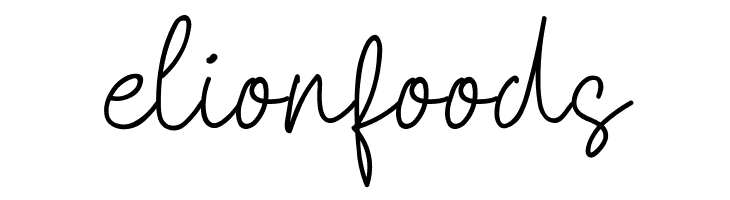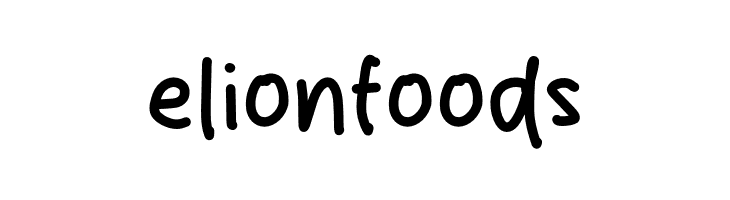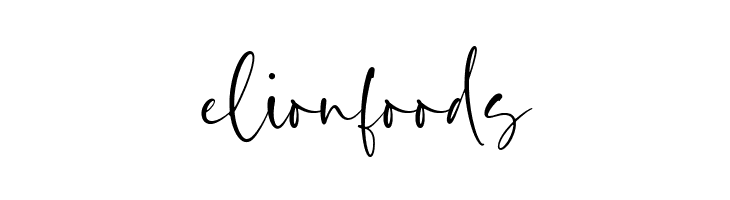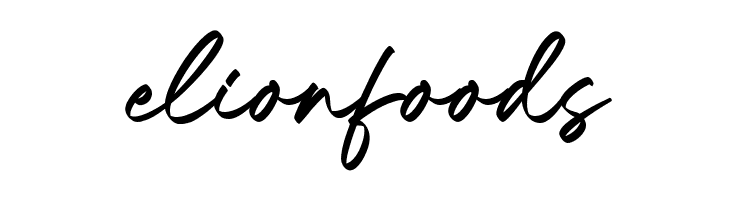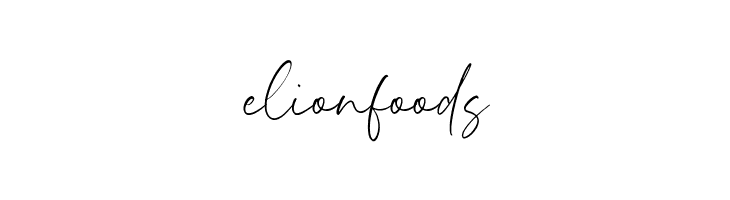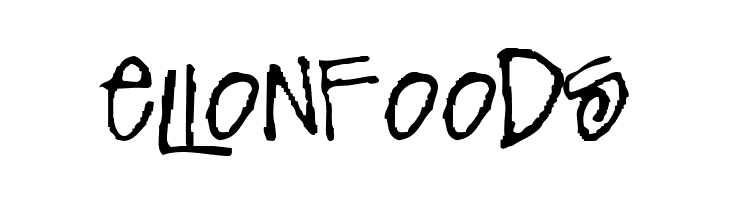
( Fonts by Timur Type )
Casual handwritten script font.
( Fonts by share font )
Casual handwritten script font.
( Fonts by Timur Type )
Casual handwritten font with a playful style.
( Fonts by MJType )
Casual handwritten font with rounded edges.
( Fonts by Vztype Studio )
Elegant script font with a handwritten style.
( Fonts by Timur Type )
Casual and elegant handwritten script font.
( Fonts by Namara Creative )
Handwritten cursive script font.
( Fonts by Ibnu Nur Rahman )
Elegant handwritten script font.
( Fonts by Paul Reid - tracertong.co.uk )
Bold serif uppercase letters in black squares, ideal for striking headlines.
A bold, outlined font with a strong, dimensional presence.
A bold, 3D geometric font with a striking shadow effect.
A modern, dual-layered font with bold, filled interiors and thin outlines.
A geometric, Art Deco-inspired font with a strong vertical emphasis.
A bold, angular font with a blend of traditional and modern geometric elements.
A bold, decorative font with geometric cutouts and striking design.
( Fonts by www.freakyfonts.de )
A bold, geometric font with Art Deco influences, perfect for striking headlines.
A decorative font with a hollow, zigzag outline for a bold, artistic look.
A decorative, geometric font with a 3D, crystal-like design.
A playful, hand-drawn font mimicking childlike handwriting.
( Fonts by KLoNk - Philippe Dallaire )
A bold, geometric font with characters enclosed in black circles, offering a modern and striking appearance.